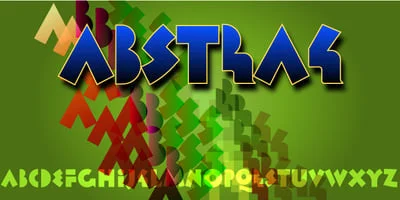
Abstrak BF Font
This contemporary font excels in various design applications including tech startup logos, architectural presentations, abstract art galleries, modern website headers, minimalist branding projects, scientific publications, digital interfaces, and avant-garde poster designs. Its clean geometry makes it perfect for projects demanding sophisticated visual communication with futuristic appeal.
Abstrak BF Font is exciting because it pushes the boundaries of traditional typography through innovative letterform construction. The font features sharp angles, unconventional curves, and abstract interpretations of classic characters that create visual intrigue while maintaining excellent legibility. Each letter serves as both functional text and artistic element.
The Abstrak BF Font family includes comprehensive variations: Light, Regular, Medium, Bold, and Black weights. Additional styles may feature outlined versions, stencil cuts, and experimental alternates that expand creative possibilities. These family members provide designers with extensive options for creating dynamic typographic hierarchies and experimental layouts.
Whether you're designing for digital platforms, print media, or environmental graphics, Abstrak BF Font offers unparalleled versatility and visual impact. This font elevates ordinary content into extraordinary visual experiences that capture attention and communicate innovation with distinctive abstract aesthetics that define contemporary design excellence.